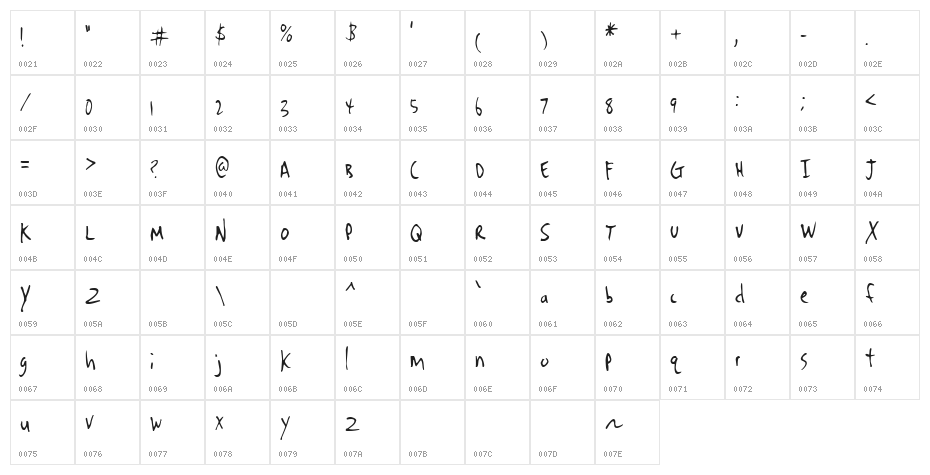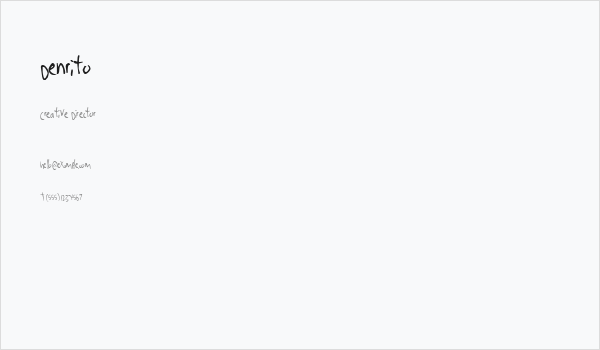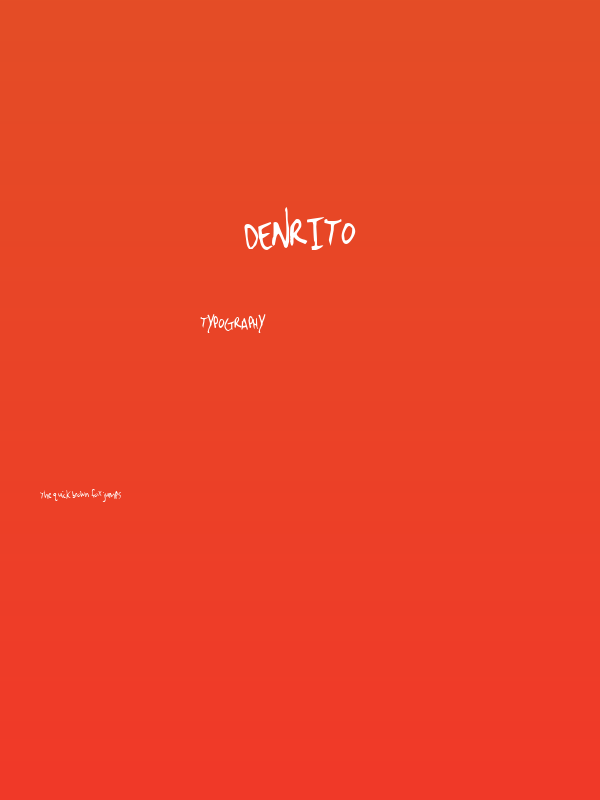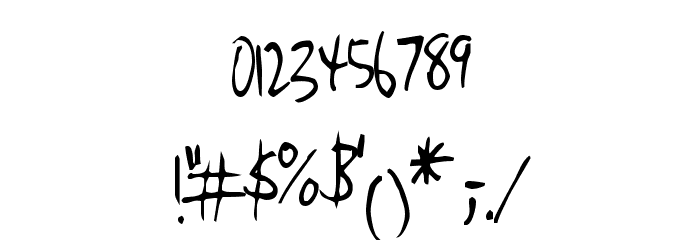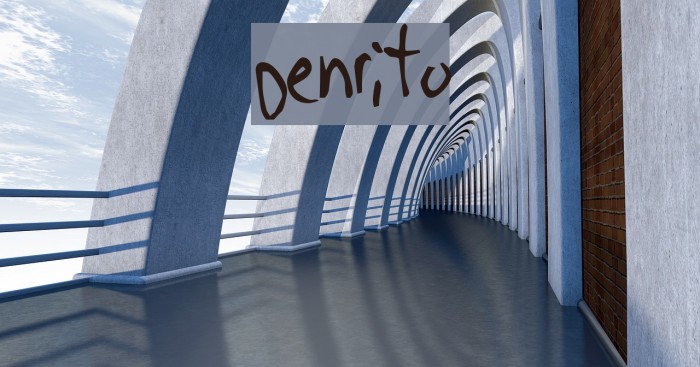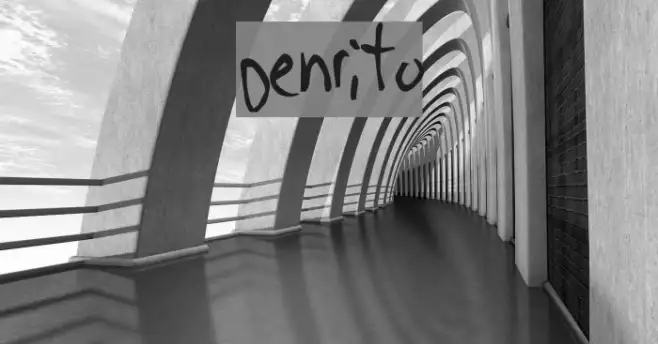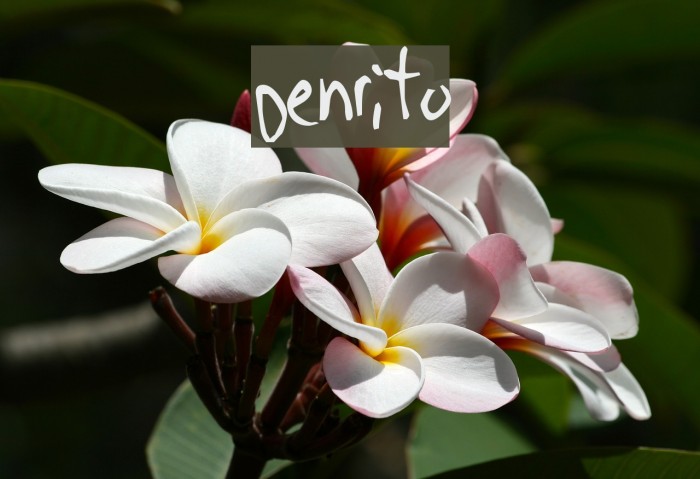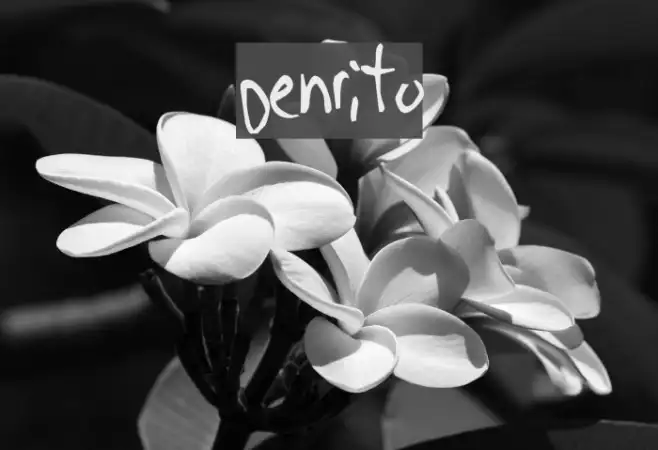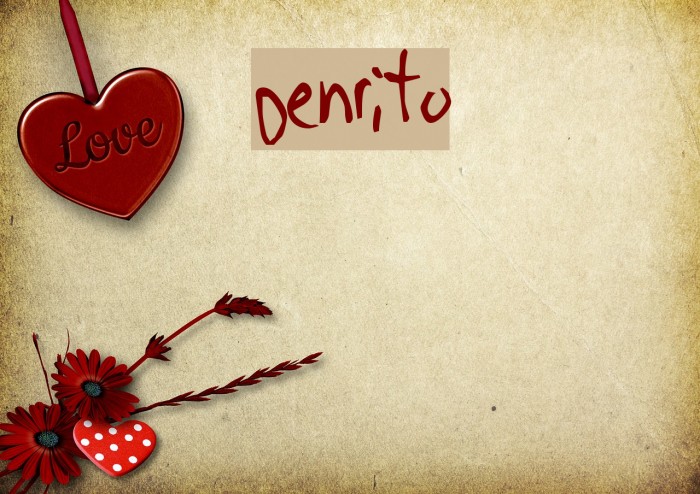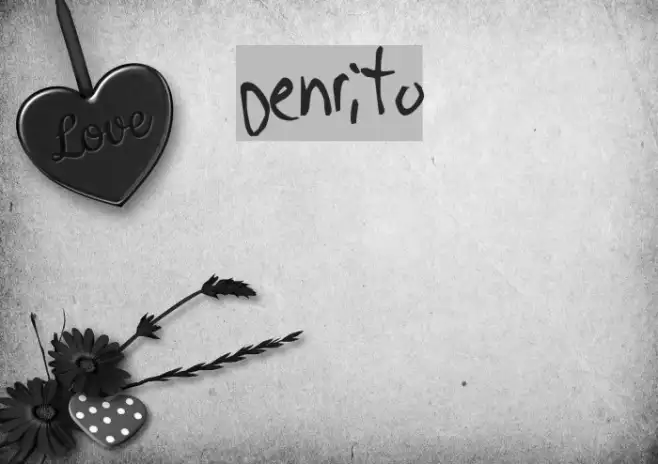
Denrito Font
Denrito Description
This font features a handwritten style with a casual and informal appearance. The characters are slightly irregular, giving it a personal and authentic feel. The strokes vary in thickness, adding a dynamic and lively touch to the text. The uppercase and lowercase letters maintain a consistent style, while the numerals and special characters complement the overall design. This font is suitable for projects that require a personal, friendly, and approachable look.
| Overall Style | Casual |
| Use Case | Logos, Headlines, Informal text |
| Proposed Projects | Ideal for greeting cards, personal branding, social media graphics, and informal invitations. |